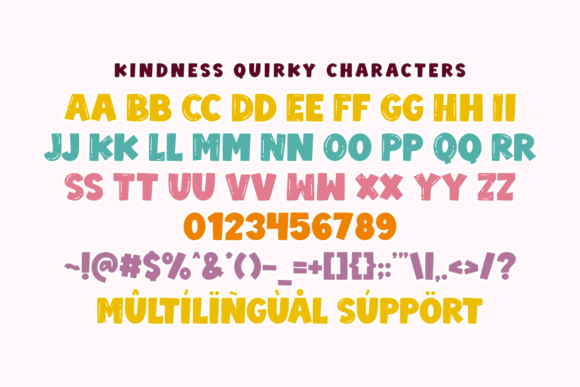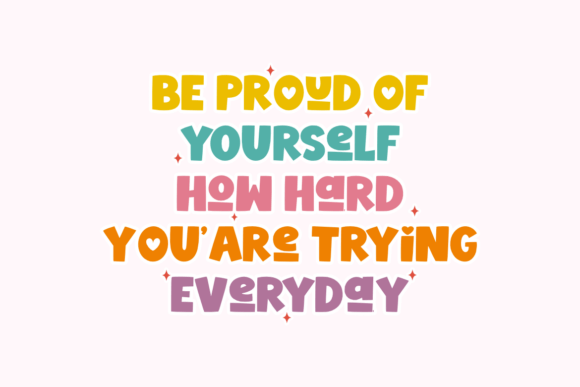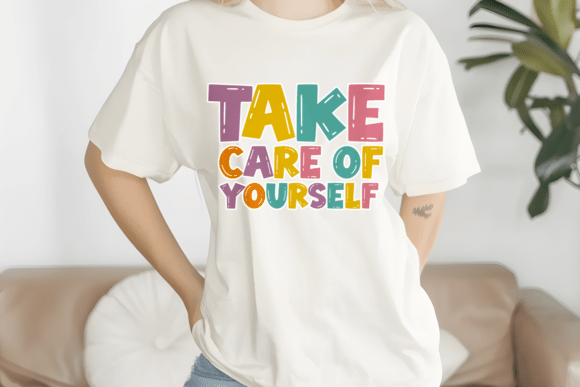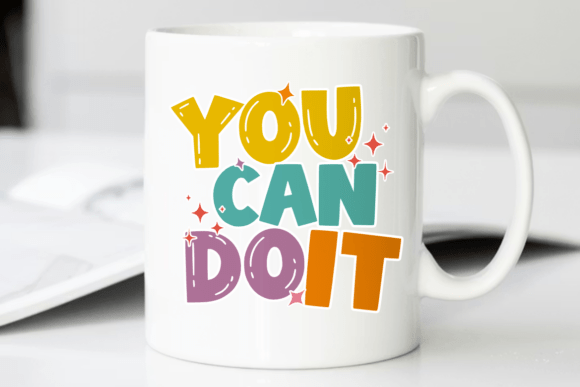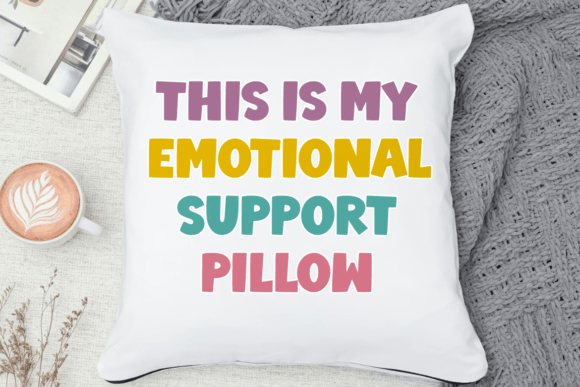
Introduction to Kindness Quirky Font
Enter Kindness Quirky Font, a charming and playful display font that’s about to become your new best friend. This delightful font is perfect for adding a whimsical touch to your designs, whether you’re working on a poster, social media graphic, or branding project.
With its soft curves and bold appearance, Kindness Quirky Font is a valuable resource for designers looking to add a high-quality, eye-catching element to their creative projects. And the best part? It’s available for free download, complete with a transparent background, making it easy to integrate into your designs.
Key Features of Kindness Quirky Font
- Unique and quirky design, perfect for creative projects that require a touch of whimsy
- Includes a range of glyphs and characters, suitable for use in various creative projects, from logos to typography-based art
- Perfect for adding a playful and friendly touch to your designs, from greeting cards to social media graphics
Honest Review: Kindness Quirky Font
As a designer, I’m always on the lookout for high-quality design resources to enhance my creative projects. Recently, I came across the Kindness Quirky Font, and I’m excited to share my honest review with you.
What works well: ✨ The Kindness Quirky Font is a beautiful, hand-drawn font that’s perfect for adding a touch of whimsy to your designs. It’s available for free download, which is a huge bonus. The font is also fully editable and comes with a transparent background, making it easy to use in a variety of design contexts.
Some limitations: ⚠️ While the Kindness Quirky Font is a great addition to any design library, it may not be suitable for formal or professional projects. The font’s quirky, hand-drawn feel may not be to everyone’s taste, and it may not be the best choice for projects that require a more traditional or formal look.
Overall impression: I’m really impressed with the Kindness Quirky Font, and I think it’s a great resource for designers who are looking to add some personality to their projects. It’s perfect for blog headers, social media graphics, and other creative projects where a bit of whimsy is needed.
- High-quality, hand-drawn design
The Kindness Quirky Font is perfect for:
- Invitations and event graphics
- Social media posts and ads
- Blog and website headers